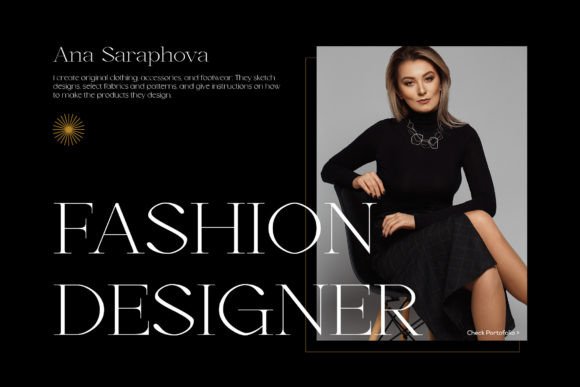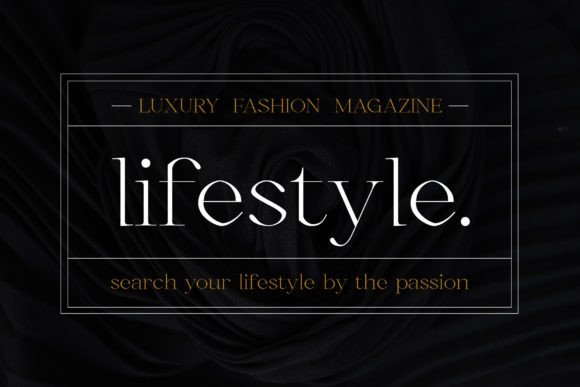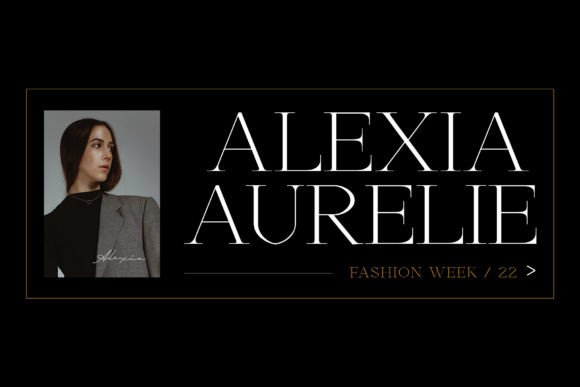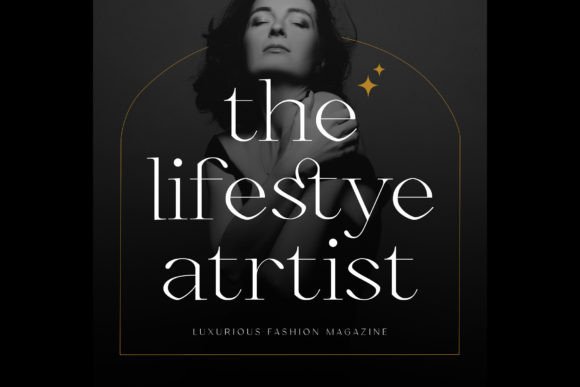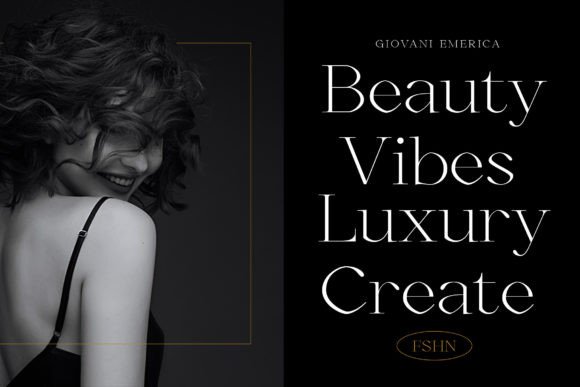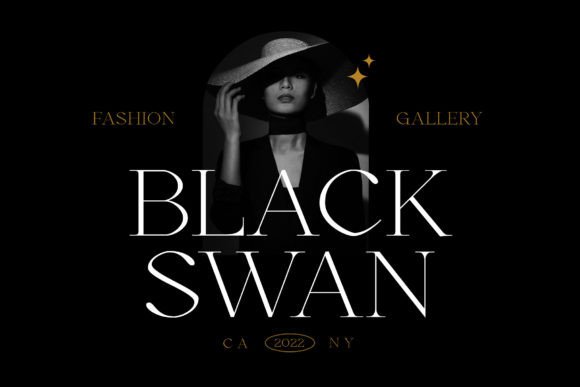
Introducing Galviory Font: Elevate Your Designs with Luxury and Elegance
Are you looking for a font that exudes luxury, elegance, and class? Look no further than Galviory, a modern serif font designed to take your branding, advertising, and editorial designs to the next level. In this article, we’ll explore the features and benefits of Galviory, and how it can be used to create stunning designs for various projects.
What is Galviory Font?
Galviory is a luxurious, elegant, and classy serif font, perfect for designers and crafters seeking to add a touch of sophistication to their work. Its modern and expressive design makes it an ideal choice for a wide range of projects, from luxury logos and branding to editorial designs, advertising, and more.
Key Features of Galviory Font
- Luxurious and Elegant Design: Galviory boasts a sleek and refined design, perfect for creating high-end branding and advertising materials.
- Modern and Expressive: The font’s modern and expressive style makes it ideal for designs that require a touch of sophistication and elegance.
- Serif Font: Galviory’s serif design adds a touch of classic elegance to any project, making it perfect for editorial designs, luxury branding, and more.
- Versatile: Galviory can be used for a wide range of projects, from logos and branding to editorial designs, advertising, and more.
Use Cases for Galviory Font
Galviory is a versatile font that can be used for various projects, including:
- Luxury Logo and Branding: Create stunning logos and branding materials that exude luxury and elegance.
- Classy Editorial Design: Add a touch of sophistication to your editorial designs, such as magazines, newspapers, and more.
- Woman Magazine: Create beautiful and elegant designs for women’s magazines, blogs, and more.
- Cosmetic Brand: Elevate your cosmetic brand with Galviory’s luxurious and elegant design.
- Fashion Promotional: Create stunning fashion promotional materials, such as flyers, posters, and more.
- Art Gallery Branding: Add a touch of elegance and sophistication to your art gallery branding.
- Museum: Create beautiful and informative designs for museums, historical landmarks, and more.
- History of Architecture: Showcase the beauty of architecture with Galviory’s elegant and refined design.
- Boutique Branding: Elevate your boutique branding with Galviory’s luxurious and elegant design.
- Stationery Design: Create beautiful and elegant stationery designs, such as business cards, letterheads, and more.
- Blog Design: Add a touch of sophistication to your blog design with Galviory’s modern and expressive style.
- Modern Advertising Design: Create stunning modern advertising designs that exude luxury and elegance.
- Card Invitation: Create beautiful and elegant card invitations for special events.
- Art Quote: Showcase your art quotes with Galviory’s elegant and refined design.
- Home Decor: Add a touch of elegance and sophistication to your home decor designs.
- Book/Cover Title: Create stunning book cover titles with Galviory’s luxurious and elegant design.
- Special Events: Create beautiful and elegant designs for special events, such as weddings, galas, and more.
Why Choose Galviory Font?
Galviory is an excellent choice for designers and crafters seeking to add a touch of luxury and elegance to their work. Here are some reasons why:
- Unique Design: Galviory’s unique design sets it apart from other fonts, making it perfect for designers seeking to create something distinctive.
- High-Quality: Galviory is a high-quality font designed to deliver exceptional results in various designs.
- Versatile: Galviory can be used for a wide range of projects, making it an excellent addition to any designer’s toolkit.
Galviory is an exceptional font that offers a unique blend of luxury, elegance, and class. Its modern and expressive design makes it perfect for various projects, from luxury branding and advertising to editorial designs and more. With its high-quality design, ease of use, and versatility, Galviory is an excellent choice for designers and crafters seeking to elevate their work.